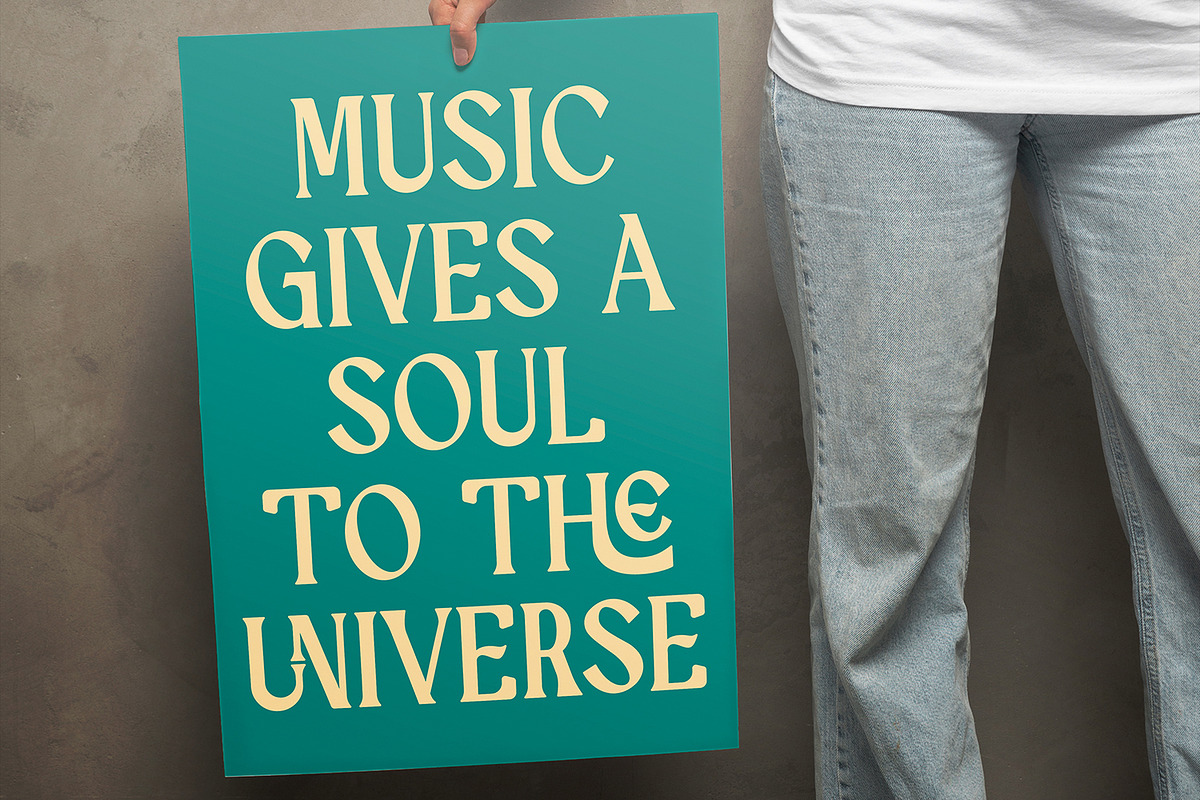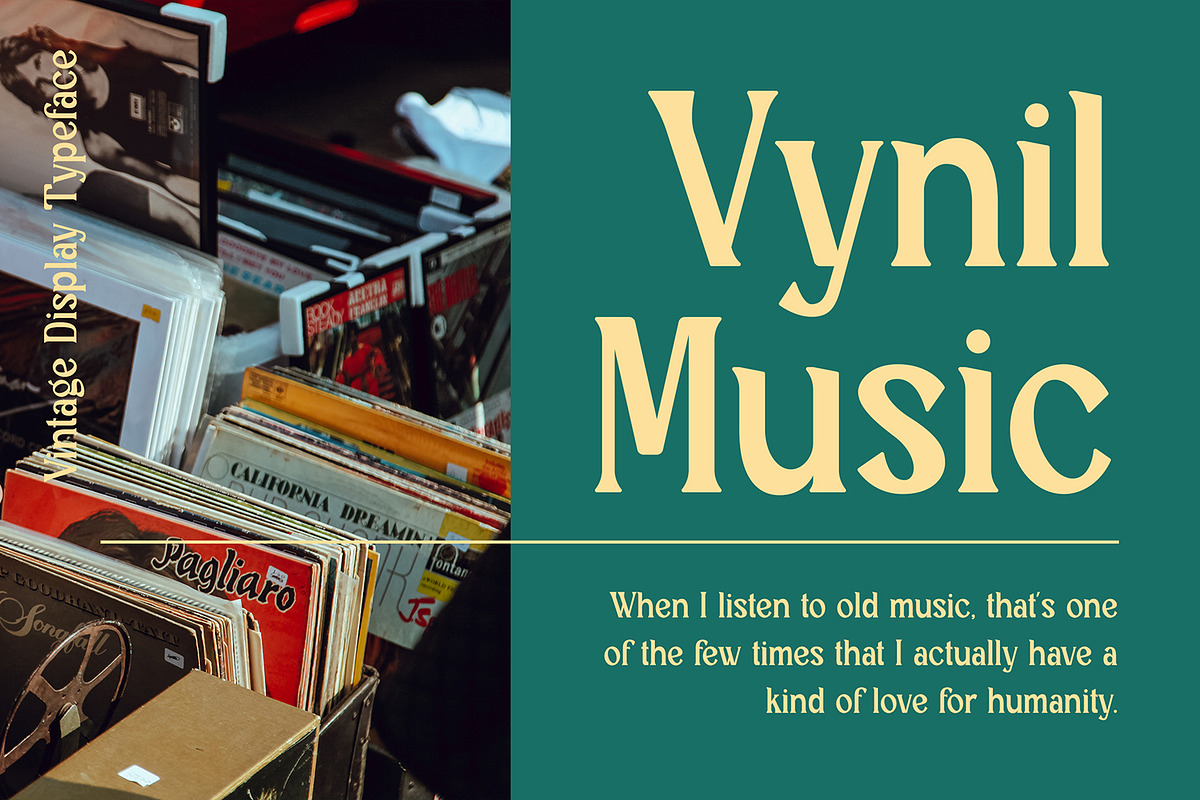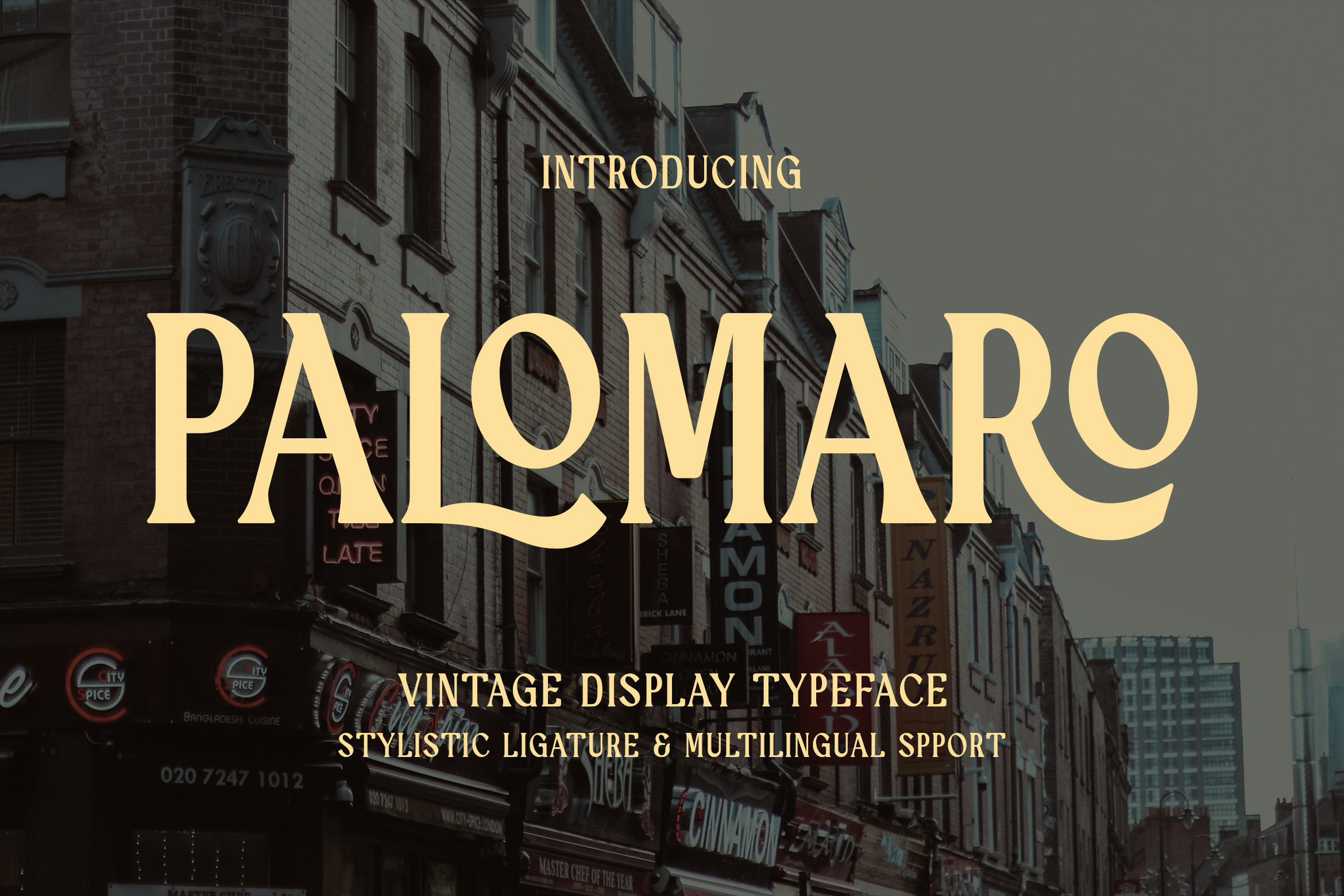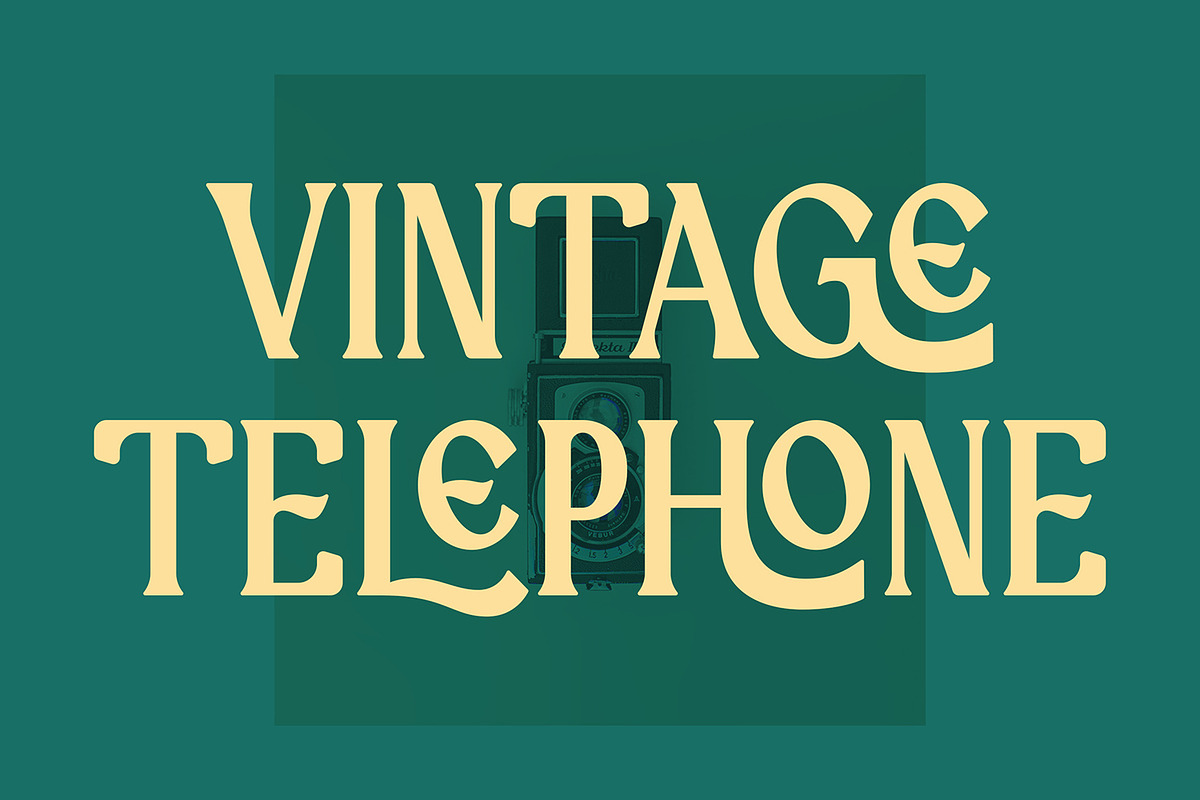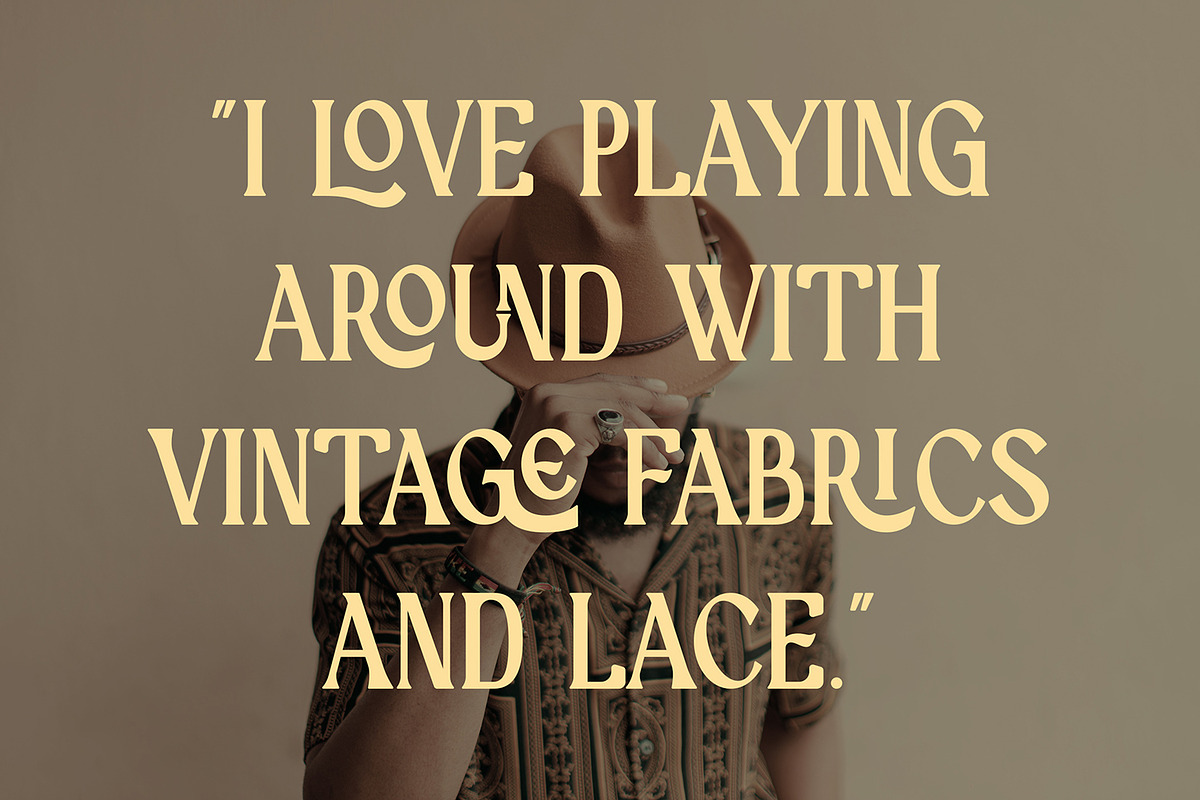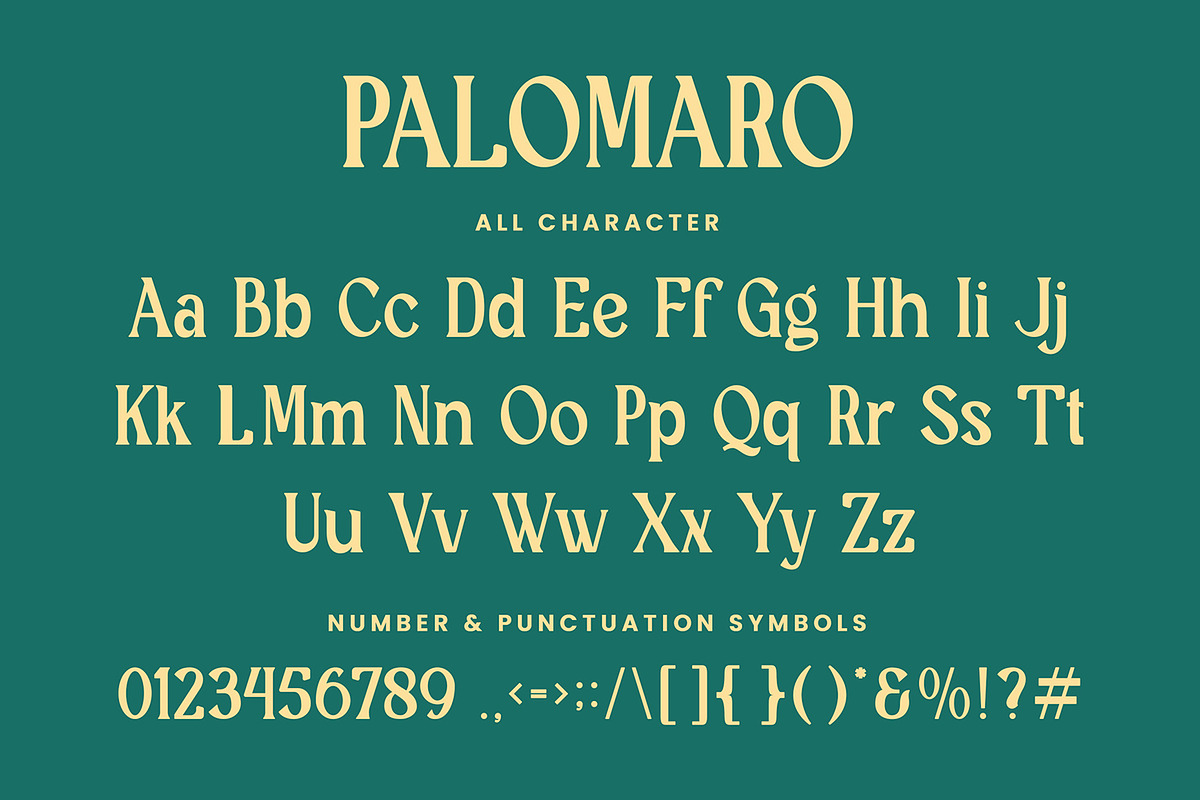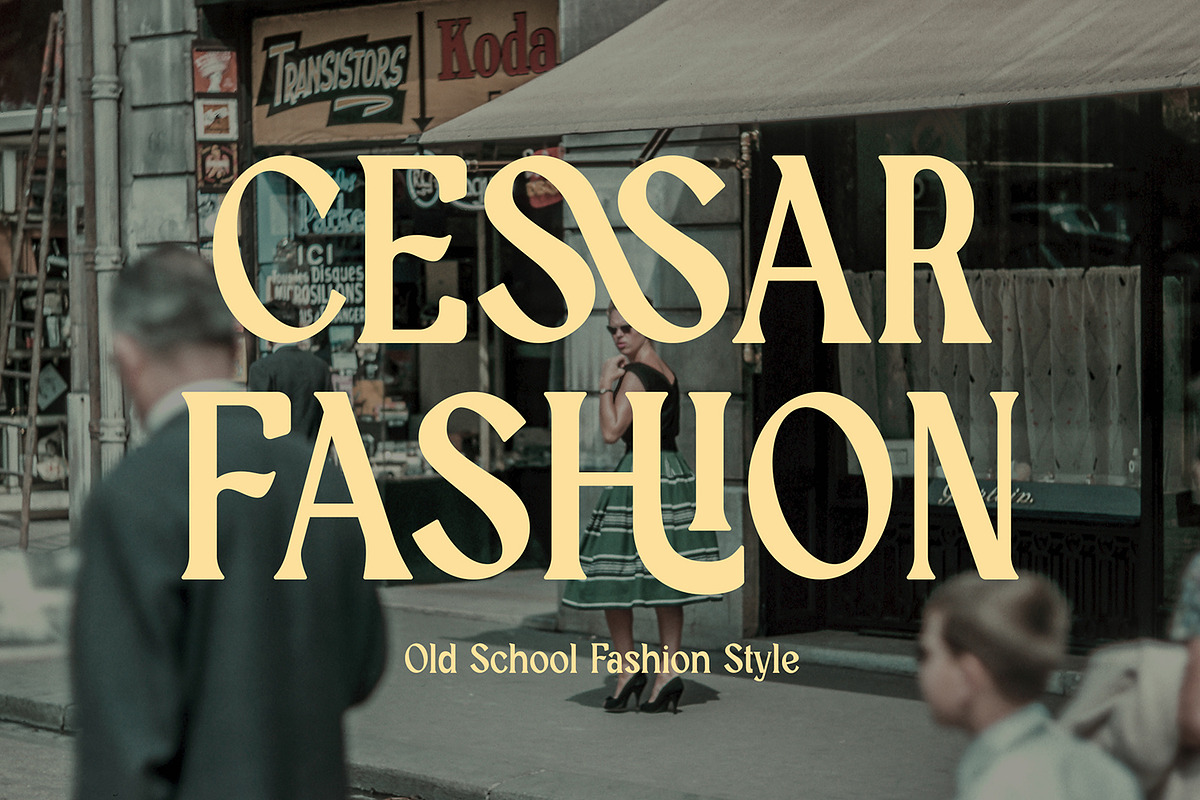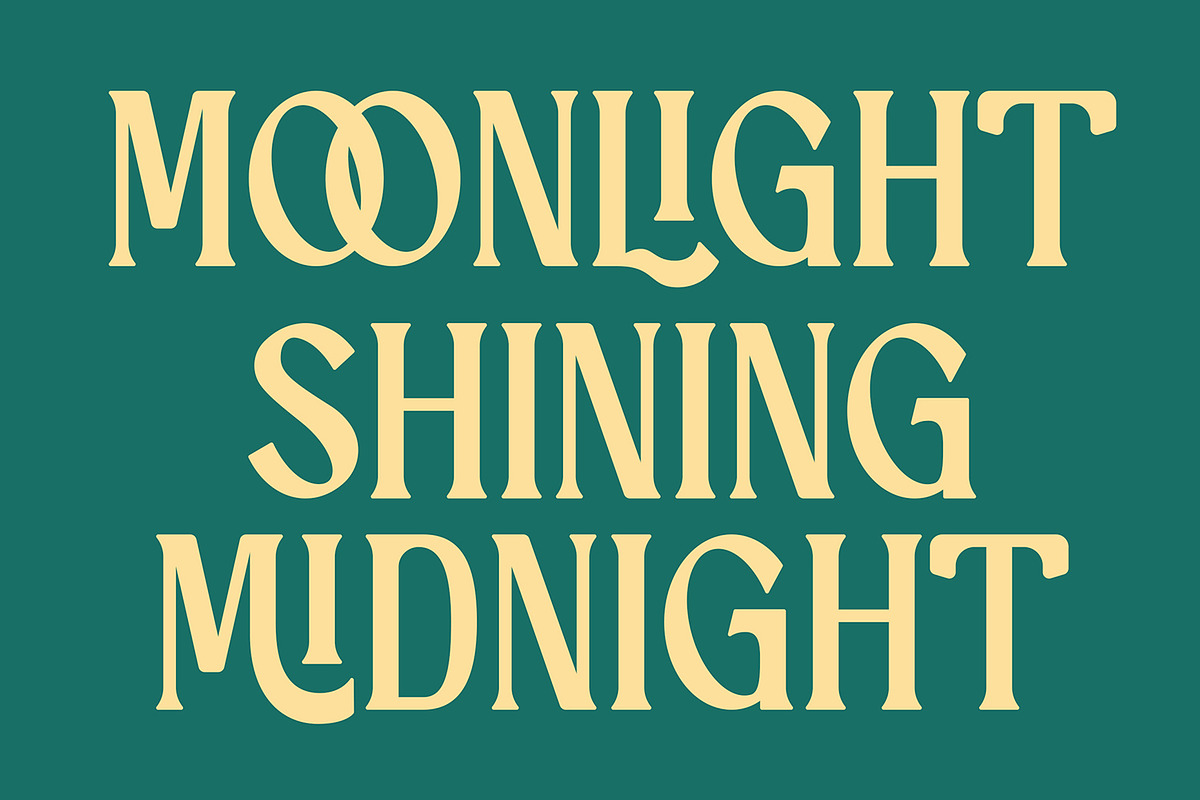
Palomaro - Vintage Font
Palomaro - Vintage Font contains a lowercase, uppercase, symbol, and also supports multi-language. There’s a lot of ligature in this font. Palomaro - Vintage Font also comes with ligatures, stylistic alternates and many more. this font suitable for fashion, branding, catalog and other design that you want.